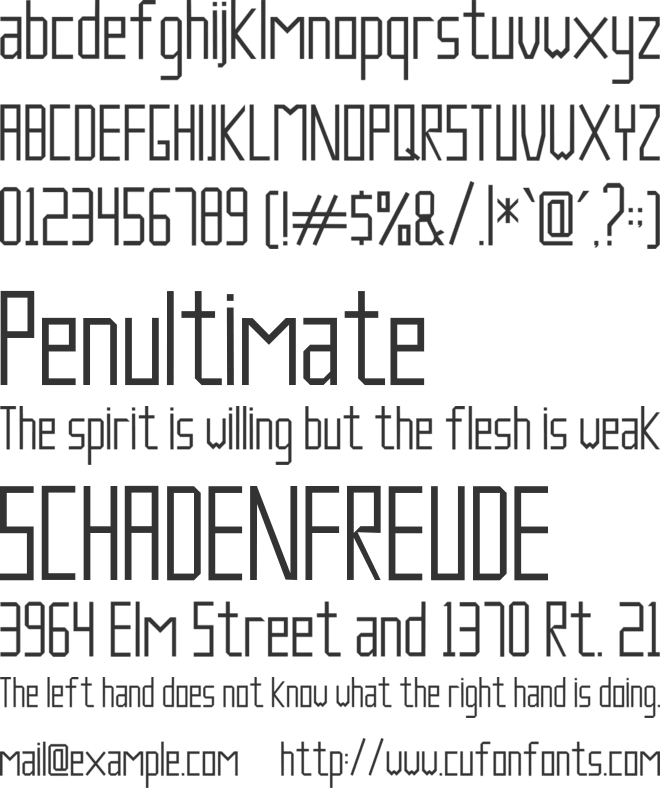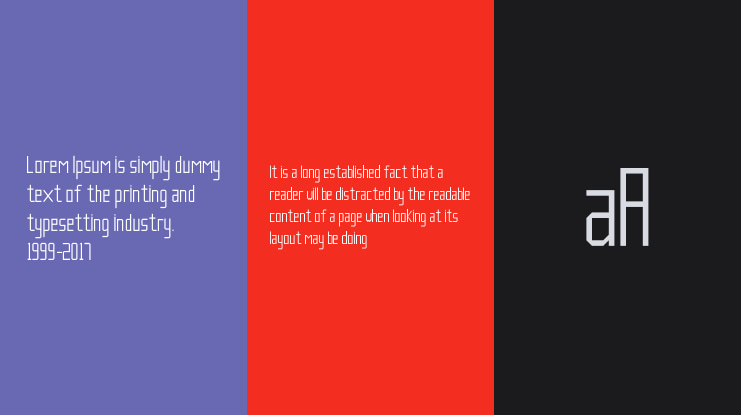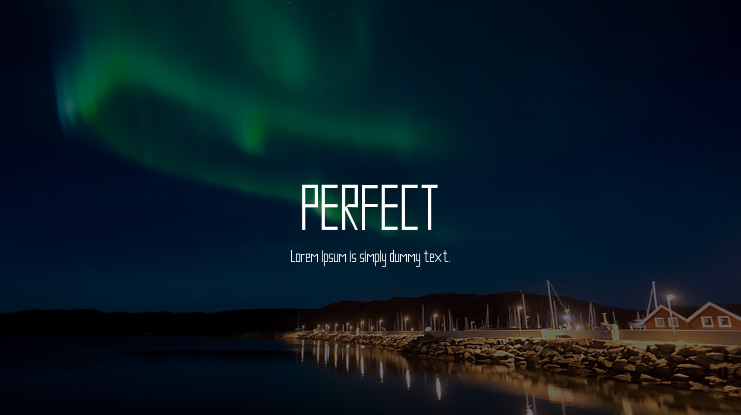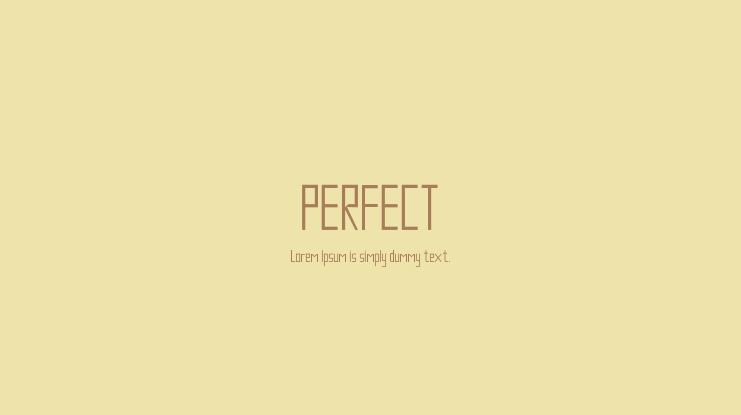
PERFECT Font
perfect font is a font that is designed for text articles, messages, news, magazines and etc. It can even be used for magazine titles or titles for news or things that need text then this font is suitable because this font is resilient and can be used almost everywhere. although not all places.